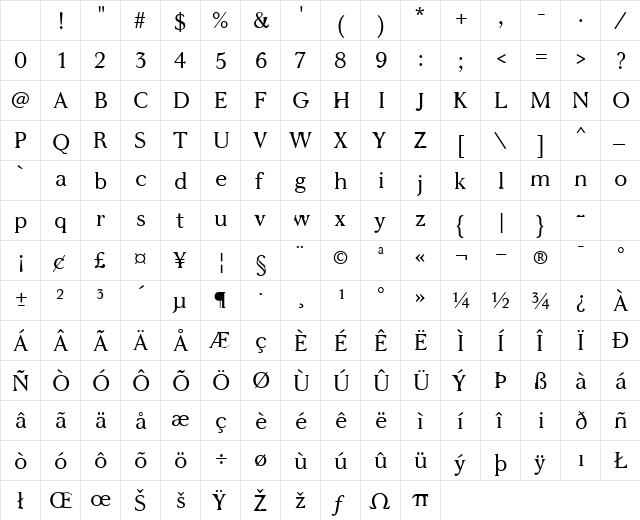
WC ADDENDUM Bta is a composed and adaptable typeface that performs quietly and consistently across a wide range of design contexts.
Pro Tip: Use WC ADDENDUM Bta in both headline and body roles to test its range before committing to a single application.